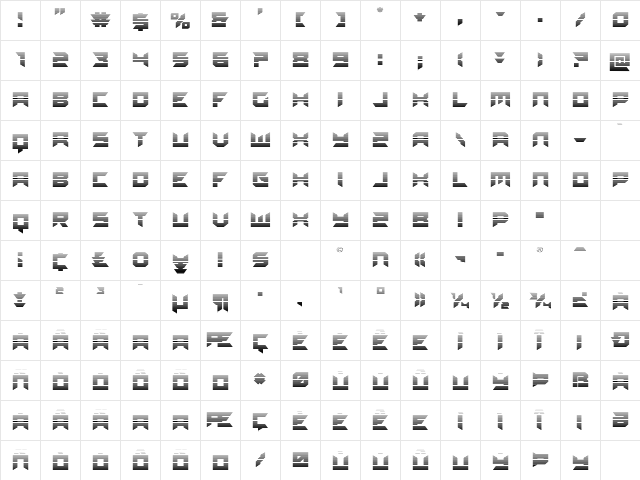
Complete Dagger Dancer Gradient Regular glyph index. Displaying only characters natively supported by Dagger Dancer Gradient Regular font.
Dagger Dancer Gradient is a composed and adaptable typeface that performs quietly and consistently across a wide range of design contexts.